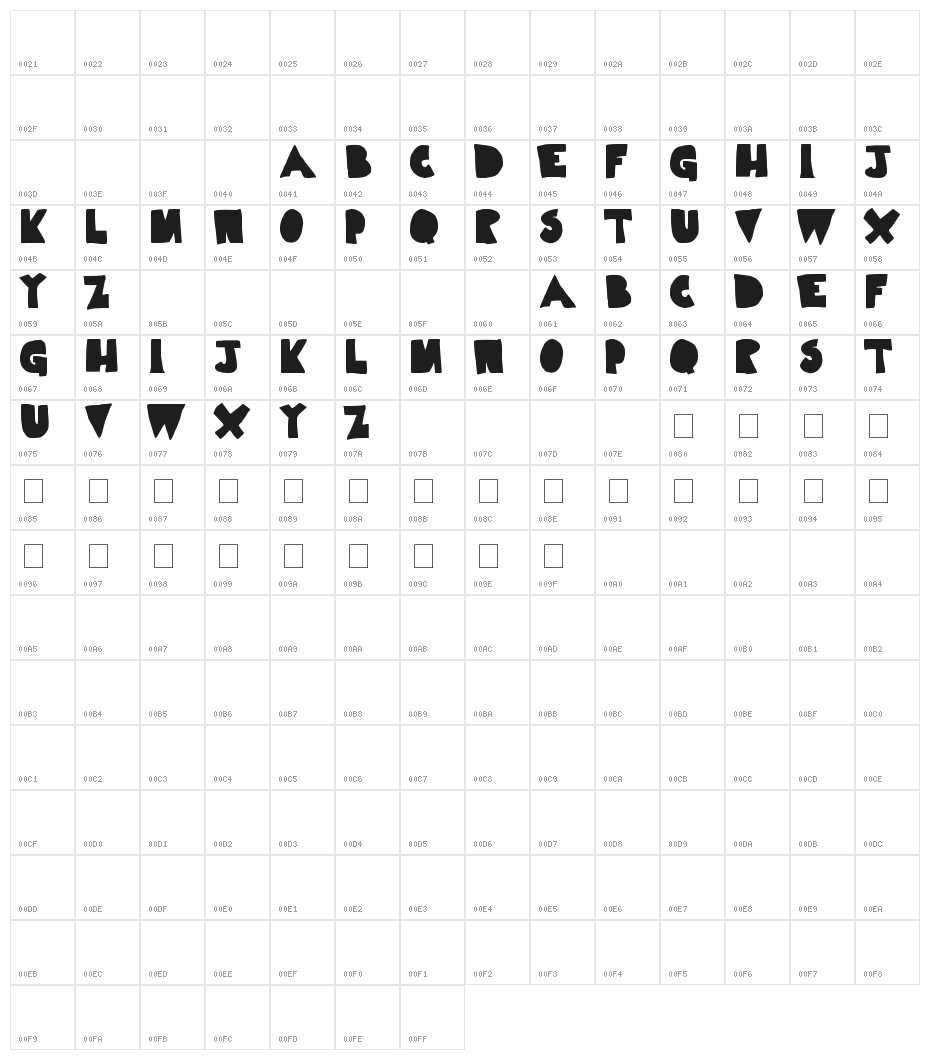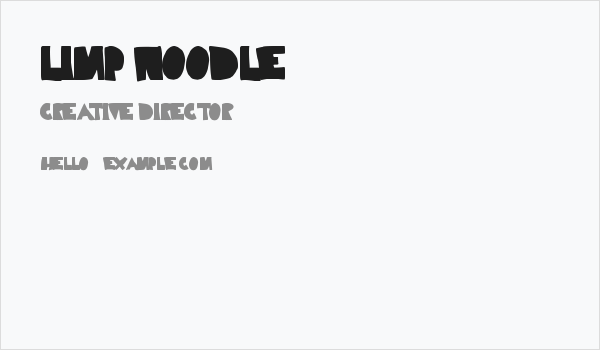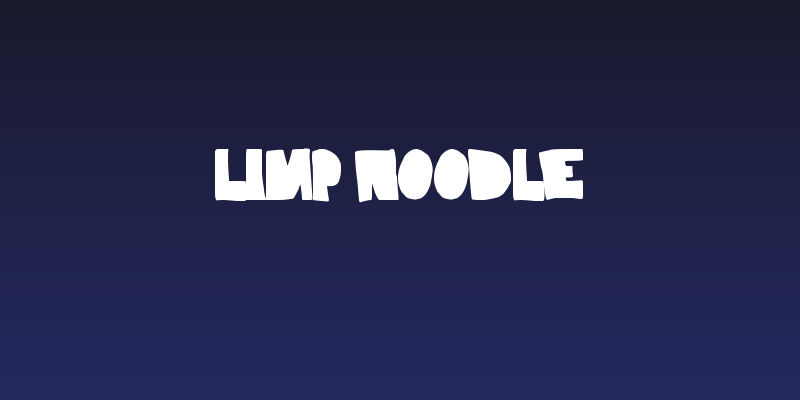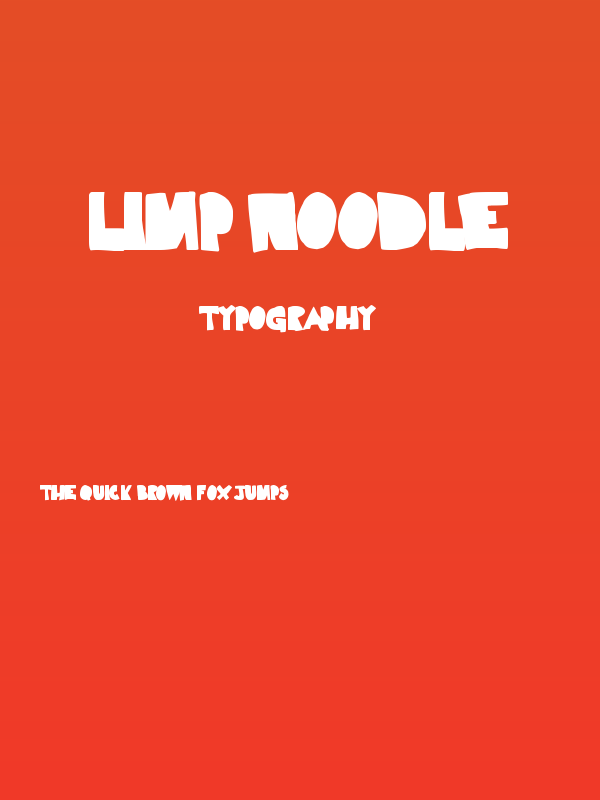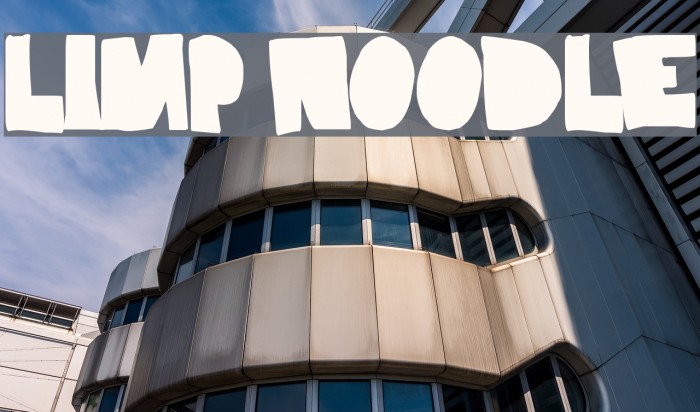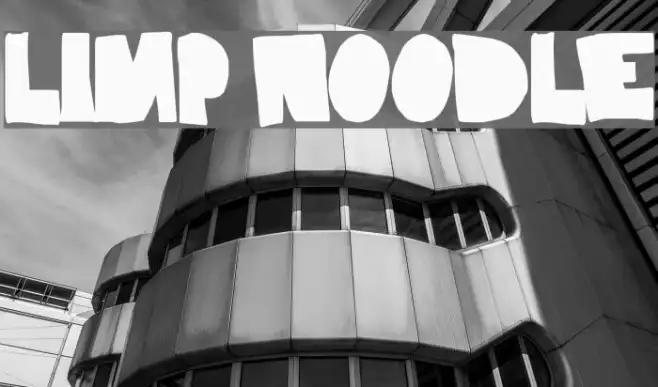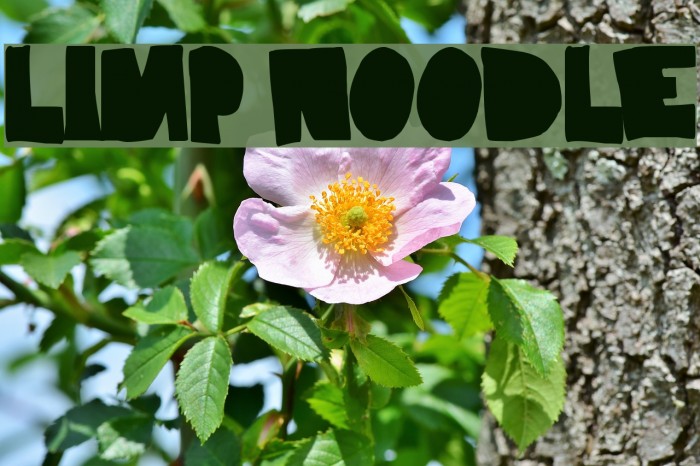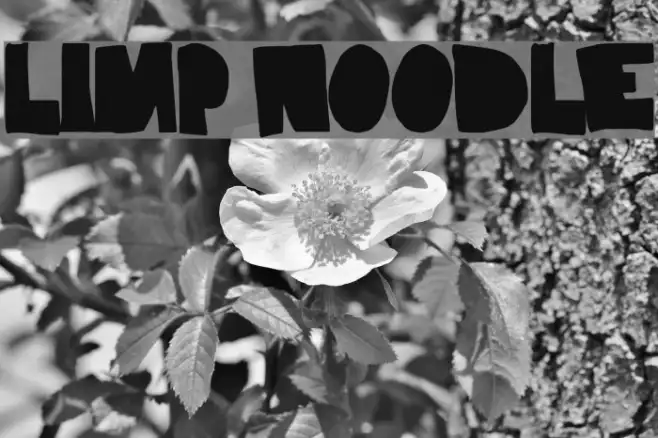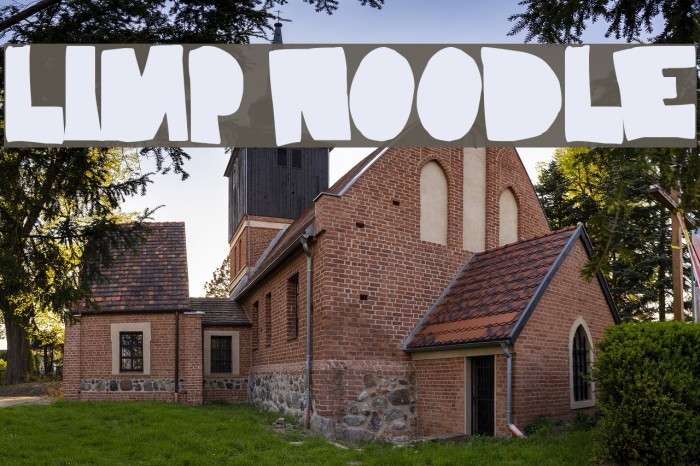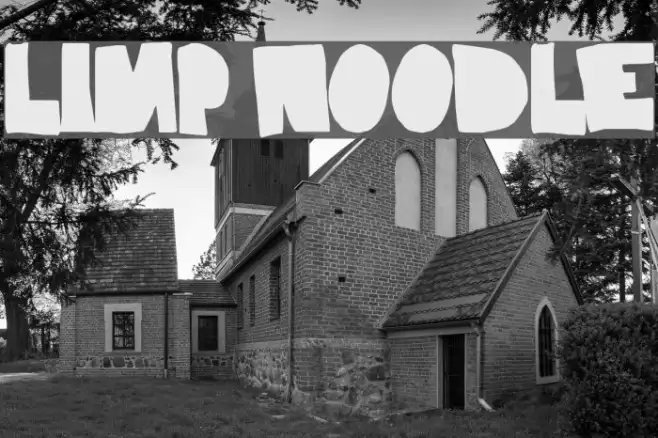
Limp Noodle Font
Limp Noodle Description
This font features a playful and bold design with exaggerated, irregular shapes that give it a whimsical and cartoonish appearance. The letters are thick and have a slightly uneven baseline, adding to the casual and informal feel. The strokes are consistent in weight, contributing to a cohesive look despite the quirky character shapes. This font is highly decorative and stands out due to its unique style, making it suitable for eye-catching designs. The overall impression is fun and lively, perfect for projects that aim to convey a sense of humor or creativity.
| Proposed Projects | Ideal for children's book covers, playful posters, comic strips, and creative branding projects. |